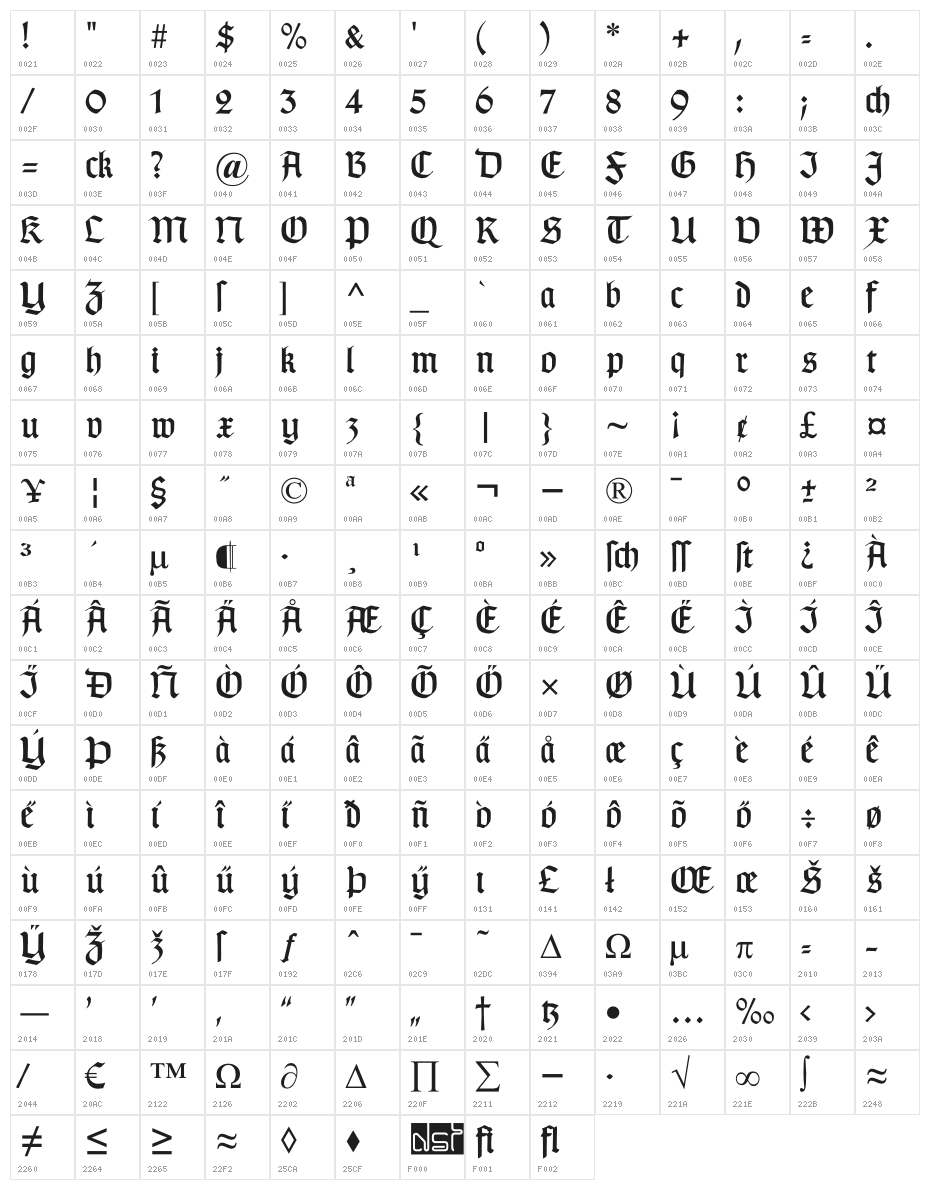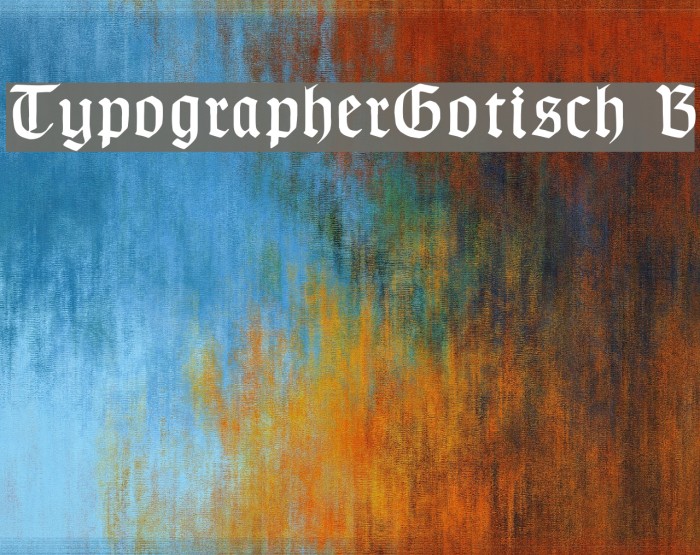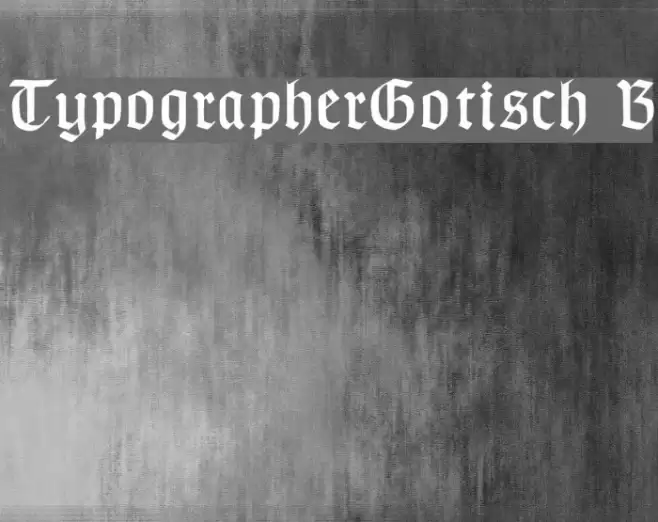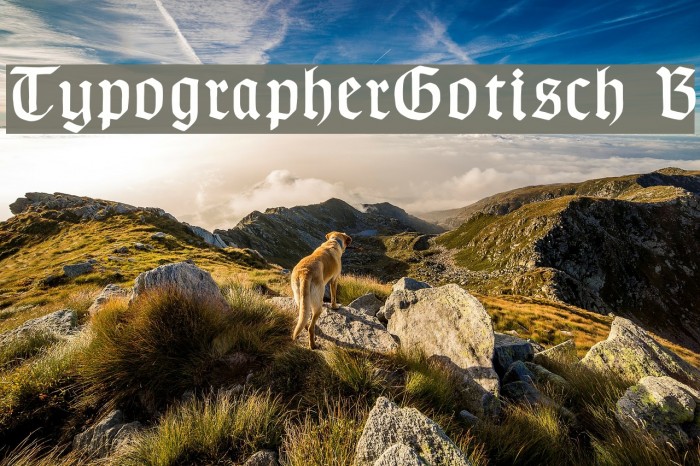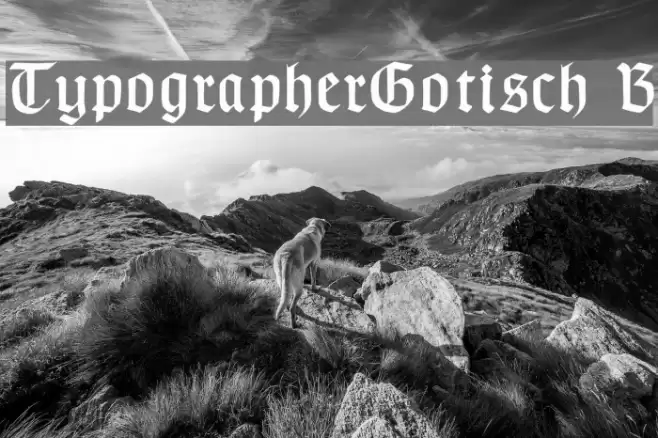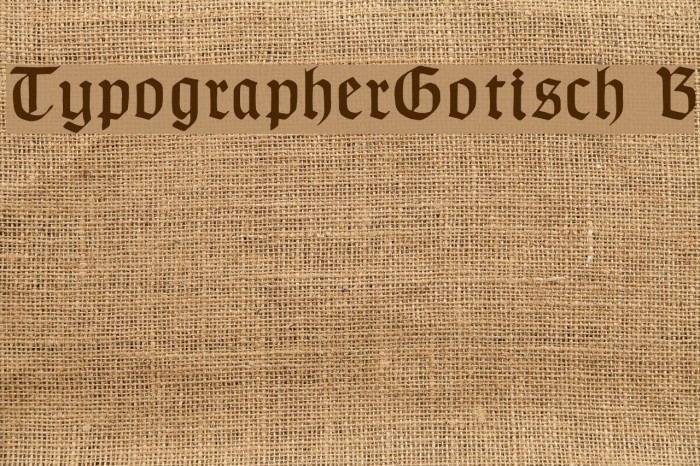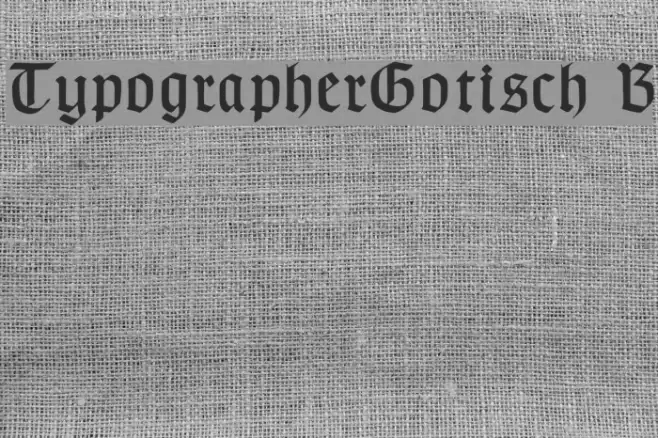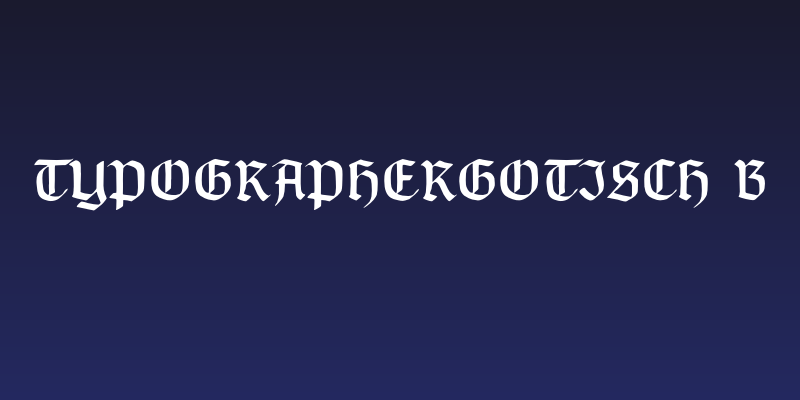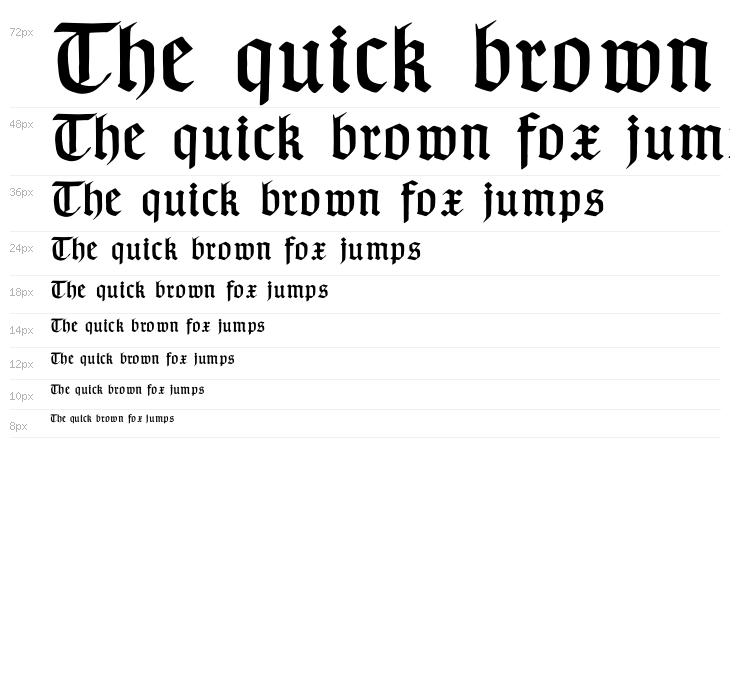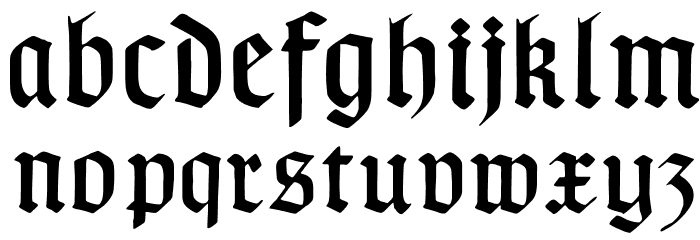
TypographerGotisch B Font
TypographerGotisch B Description
This font embodies the traditional elegance of blackletter typography, characterized by its intricate and ornate letterforms. The uppercase and lowercase letters exhibit sharp, angular strokes with a distinct medieval flair, reminiscent of Gothic script. The numerals and special characters maintain this stylistic consistency, offering a cohesive and visually striking appearance. The font's bold and dramatic presence makes it ideal for projects that require a historical or classical touch. Its intricate details and strong visual impact are perfect for creating a sense of grandeur and sophistication.
| Use Case | Headlines, Logos, Decorative text |
| Proposed Projects | Ideal for historical documents, certificates, book covers, posters, and branding that requires a classic or Gothic aesthetic. |